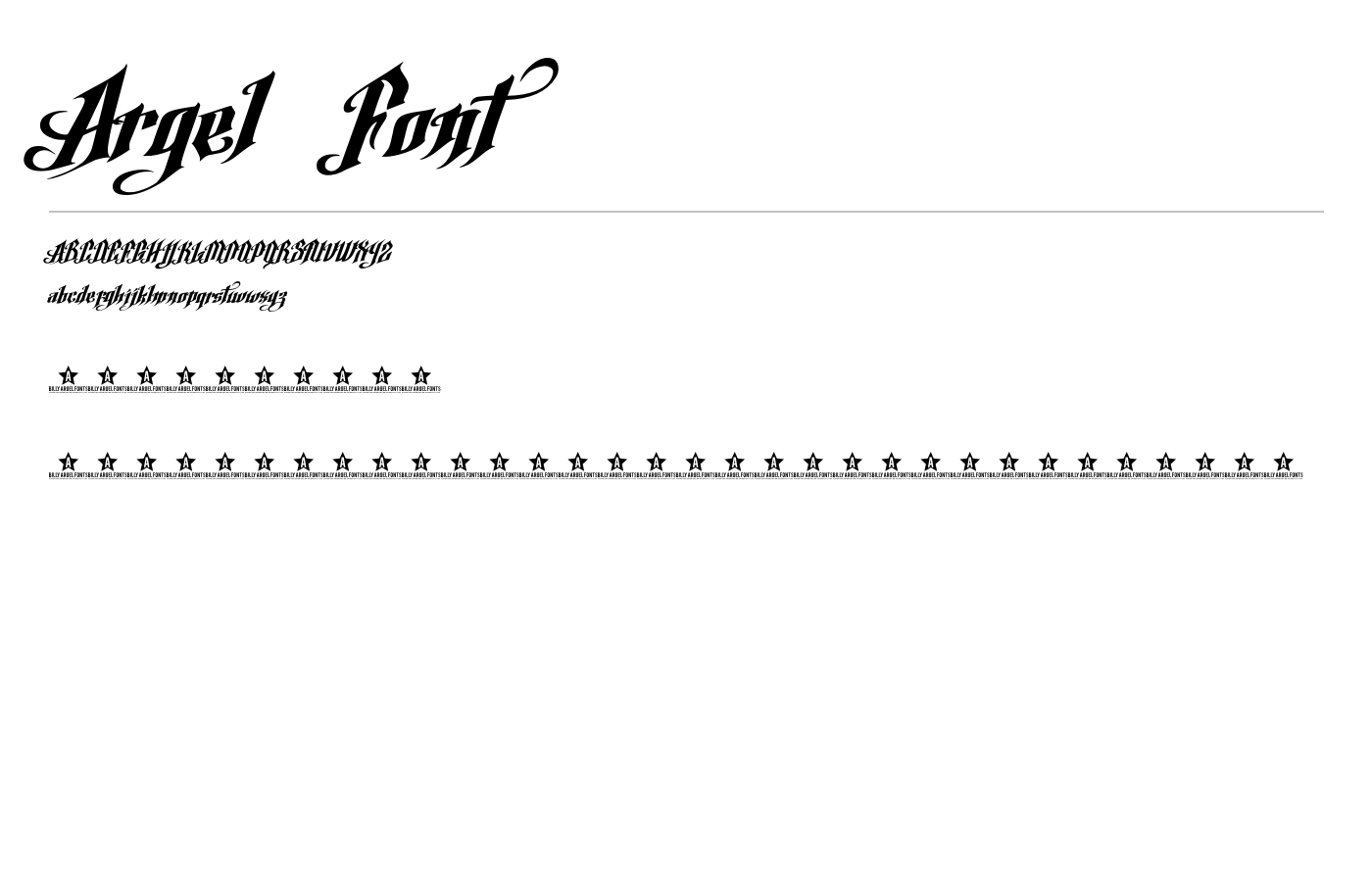
Argel Font is a bold, narrow blackletter script with dramatic, sharp strokes and high contrast that exudes an edgy, vintage Gothic style. Its stylish flourishes and condensed letterforms make it ideal for eye-catching headlines, logos, and designs seeking a strong, rebellious personality. This font works well in branding and editorial projects that want to convey a distinctive, classic yet daring mood.
Argel Font
About Argel Font
| Font family | Argel Font |